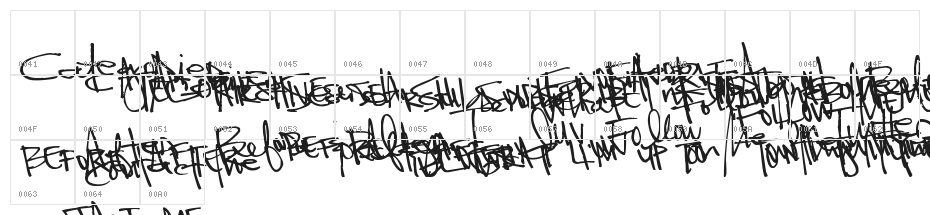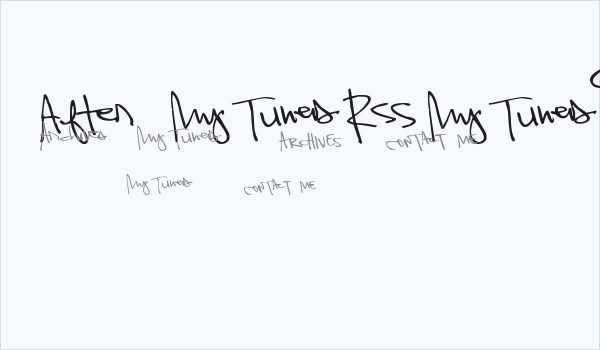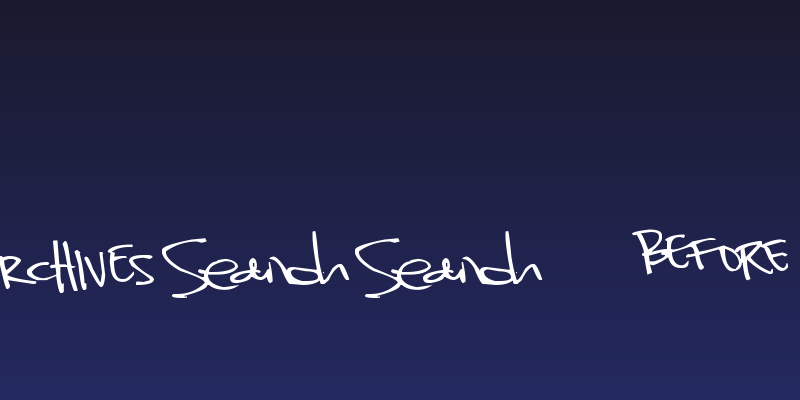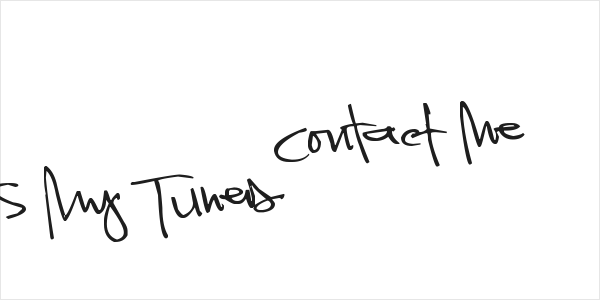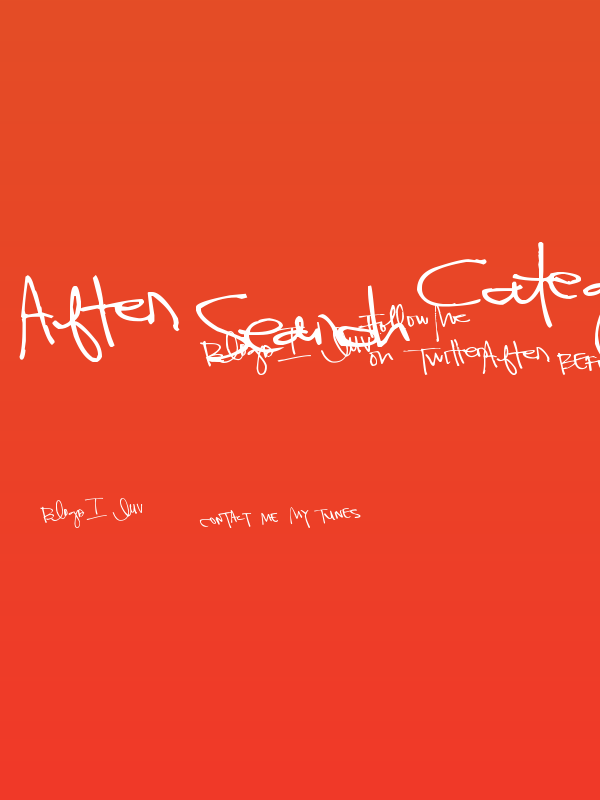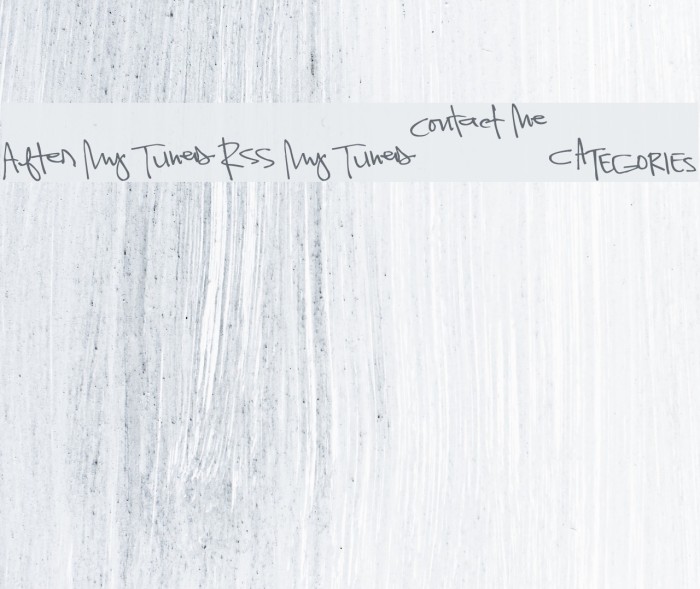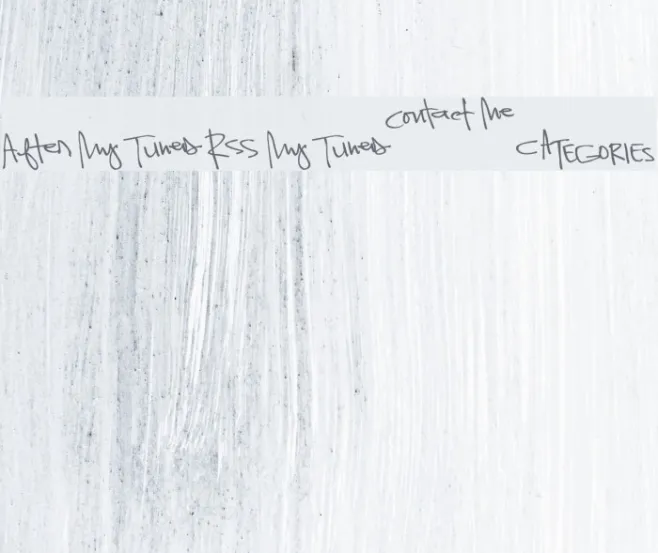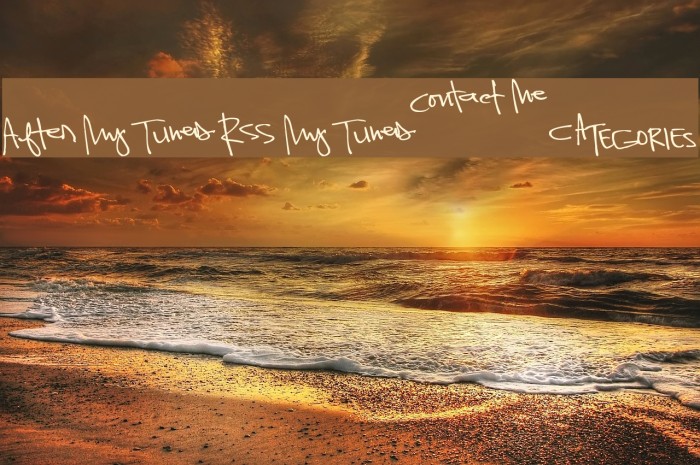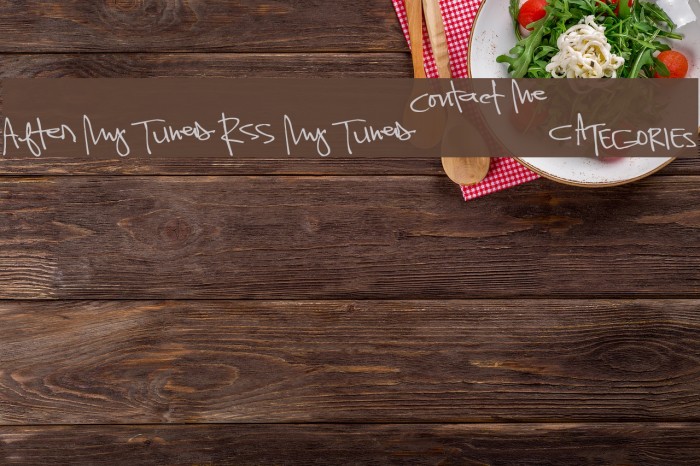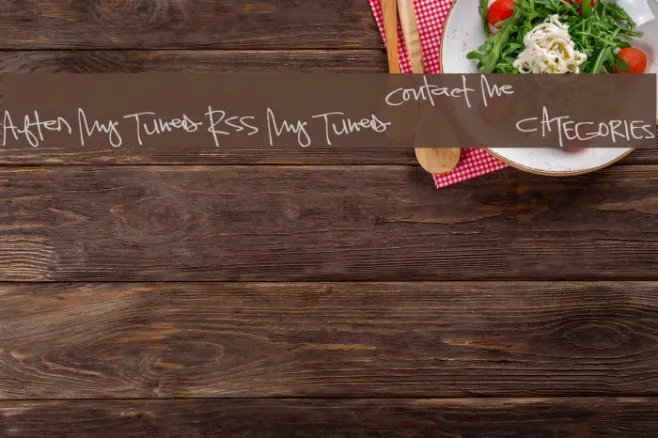
Pea Kadee's Blog Font
Pea Kadee's Blog Description
This font exhibits a playful and casual handwritten style, characterized by its irregular and dynamic letterforms. The strokes are uneven, giving it a personal and informal feel, reminiscent of quick, expressive handwriting. The characters are slightly slanted, adding to the sense of movement and energy. The font maintains a consistent flow, with letters connecting smoothly in a natural script style. Its unique appearance makes it stand out, suitable for projects that require a touch of personality and creativity.